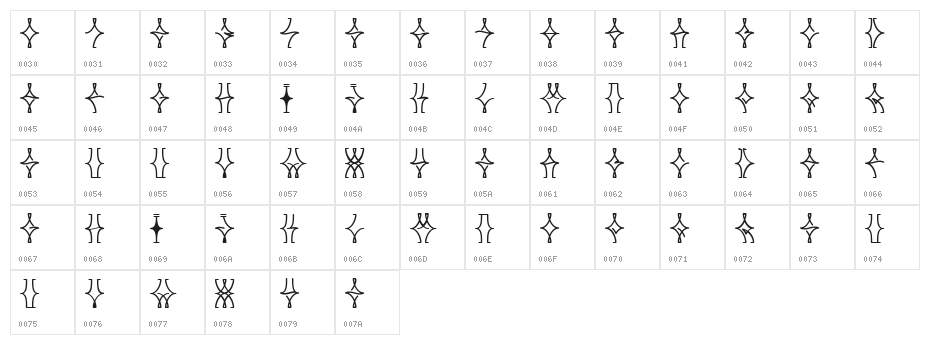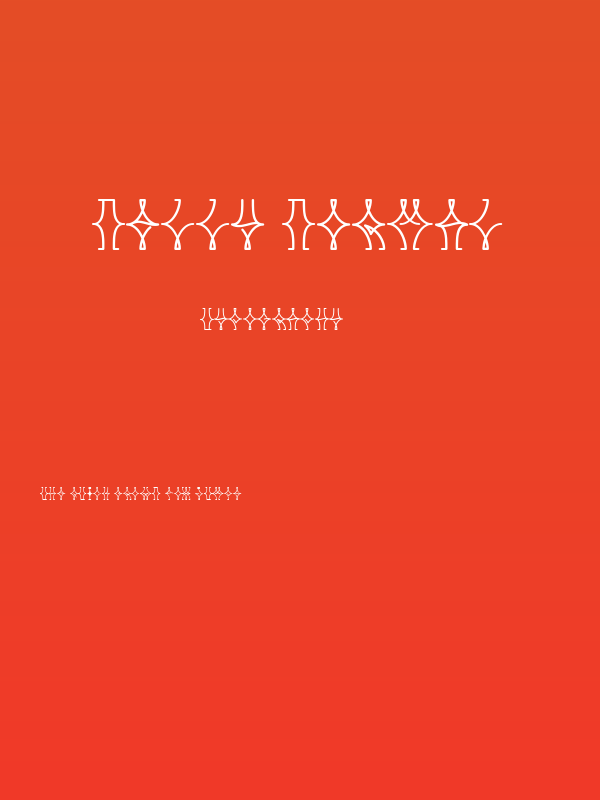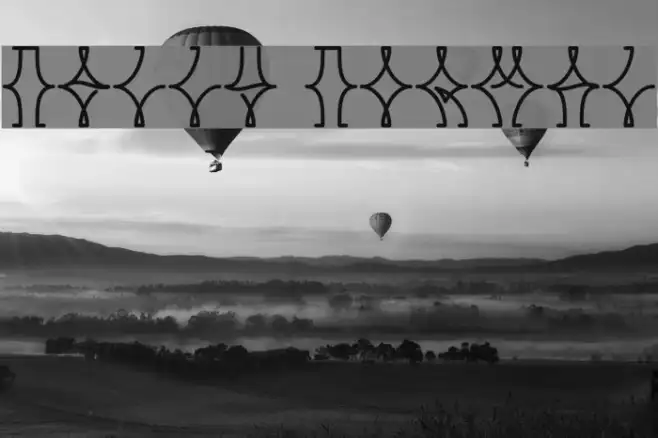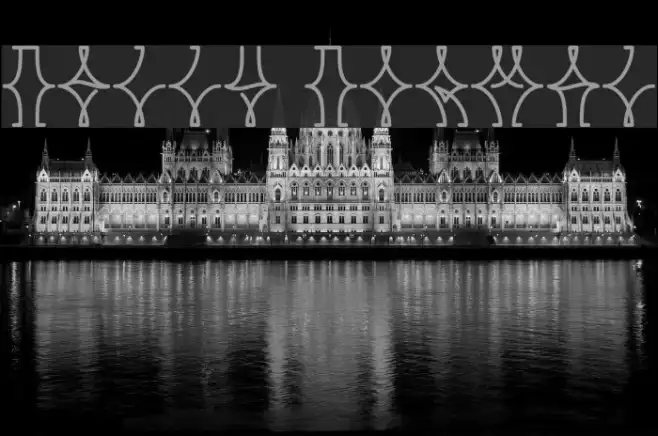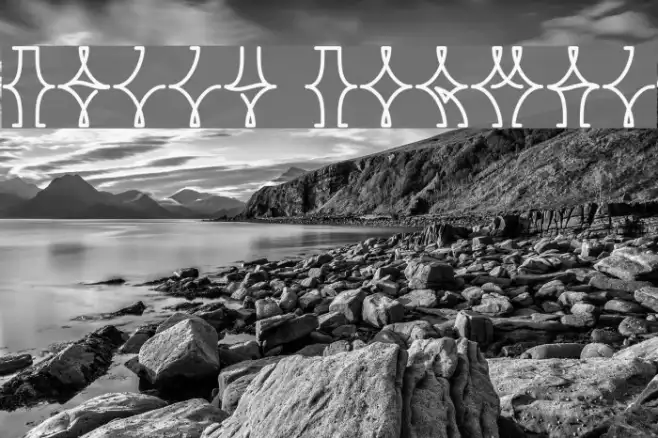
NELLY Normal Font
NELLY Normal Description
This font features a highly decorative and abstract design, characterized by its unique and intricate shapes that resemble geometric patterns rather than traditional letterforms. The characters are composed of curved and angular lines, creating a sense of movement and fluidity. The overall appearance is artistic and avant-garde, making it suitable for creative and unconventional projects. The font lacks traditional readability, focusing instead on aesthetic appeal and visual interest.
| Use Case | Logos, Artistic designs, Posters |
| Proposed Projects | Ideal for artistic designs, abstract art pieces, modern posters, and creative branding projects. |